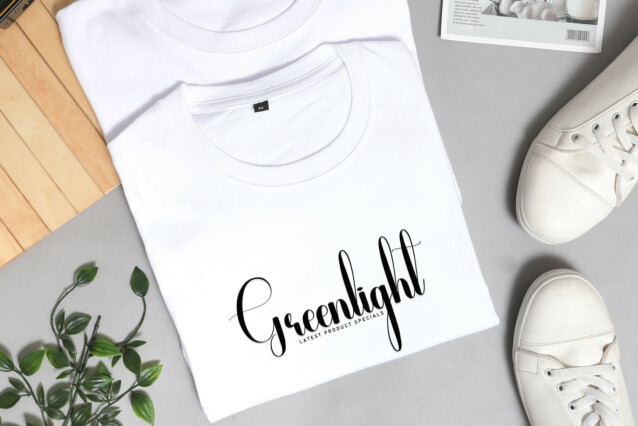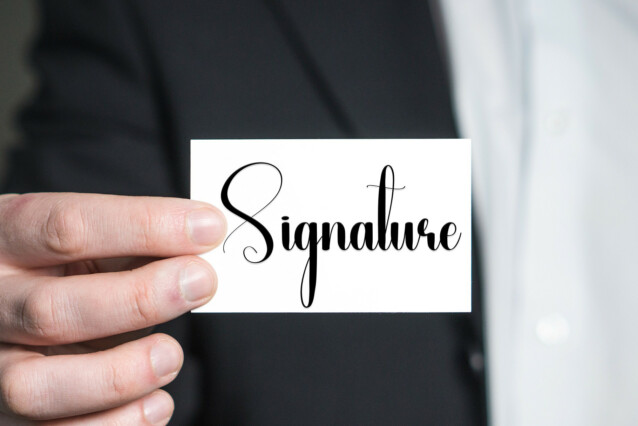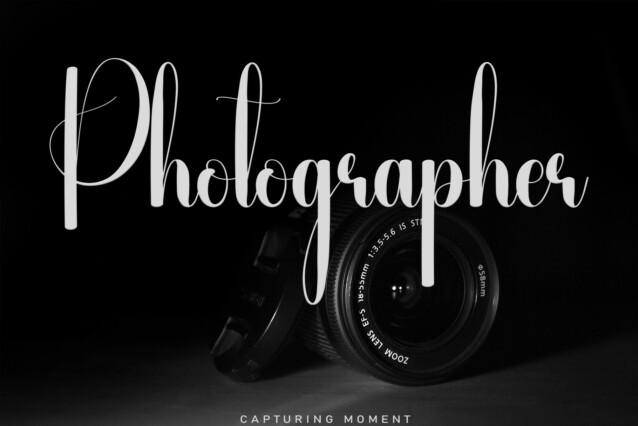
Butterfly Calligraphy Font
Butterfly Calligraphy Font is a sweet and friendly handwritten display font. Cute and fun, this font is ideal for writing wedding invitations, cards, or any other design that might need a playful touch!